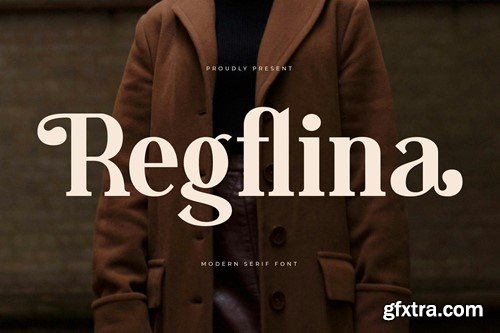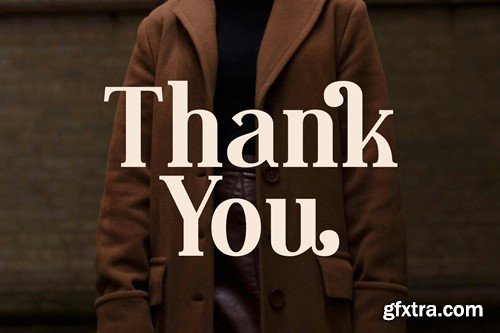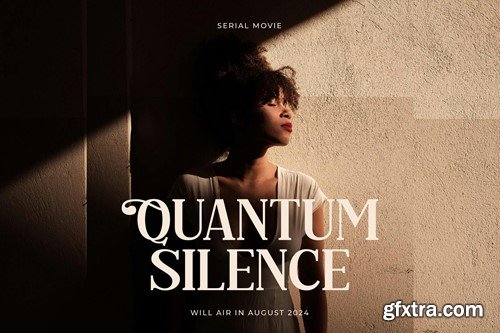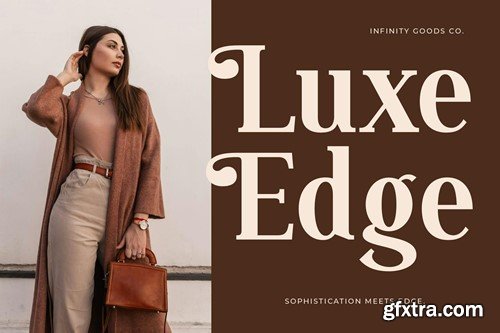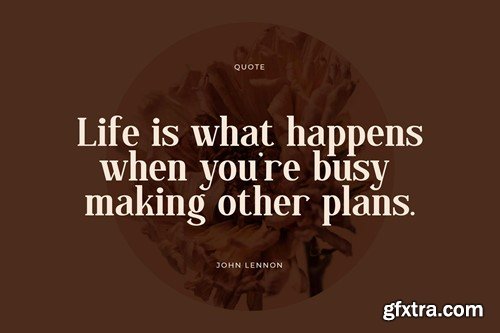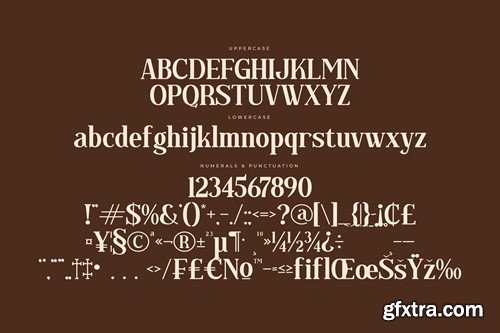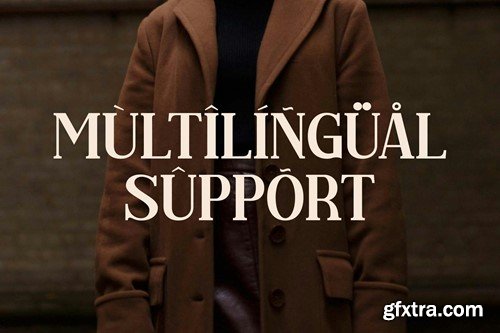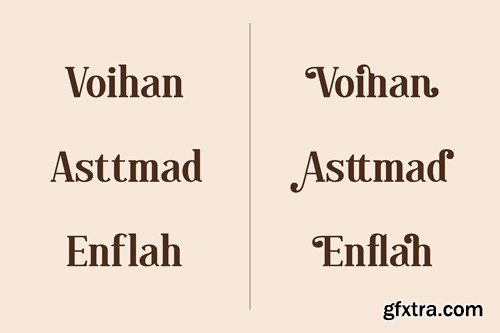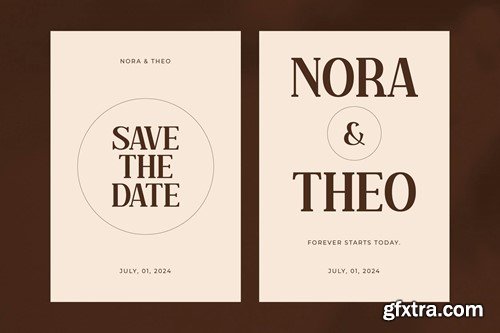
Regexflina现代-serif字体NK382S7
Regflina Modern Serif Font NK382S7
Regflina Modern Serif Font
Hi ladies & gentlemen, this is one of our fonts suitable to complement your digital and printed creative products. This font is perfect for posters, social media posts, branding, personal projects, etc.